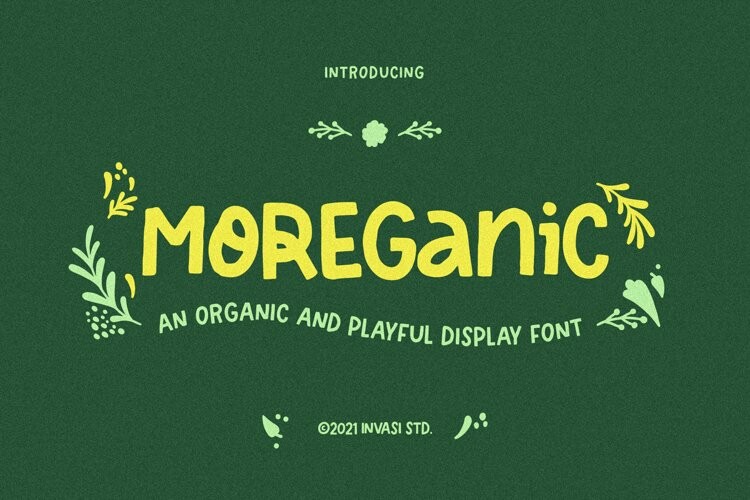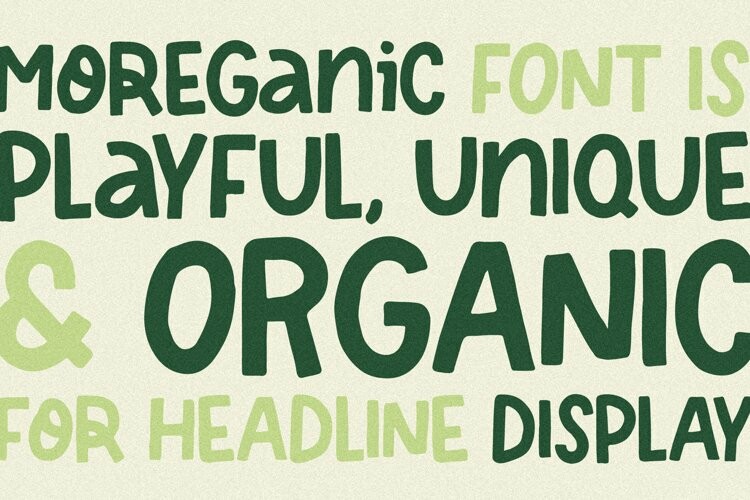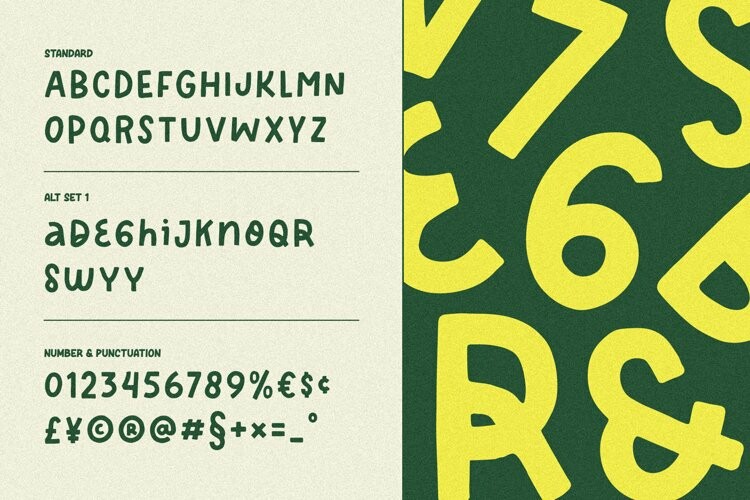
Moreganic Font
Moreganic FontInspired by plants and healthy lifestyles. Introducing Moreganic Font, our new and fun font collection. Combining a hand-drawn style with a modern touch. Moreganic comes with Alternates that you can use to give more options to your projects.
Moreganic Font is ideal for branding projects or packaging that need an organic and playful feel.